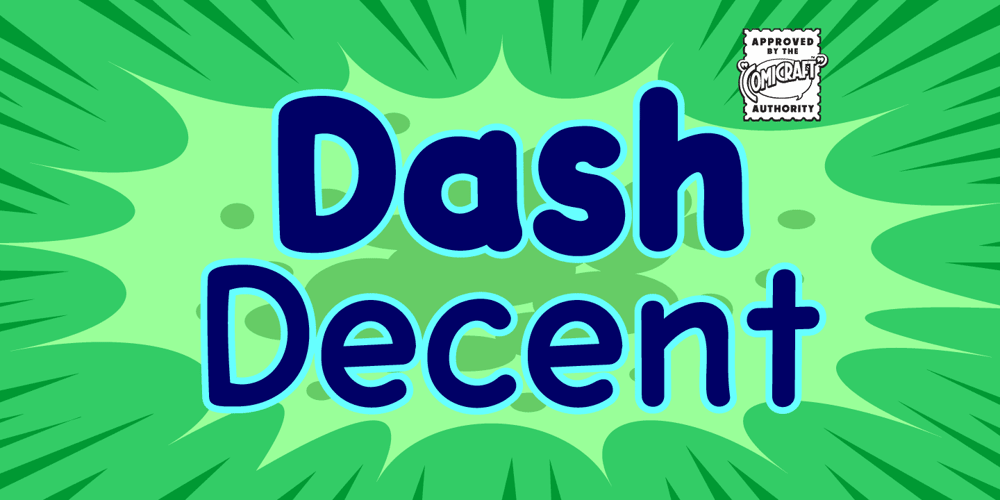
Dash Decent Font Family was designed by John Roshell and published by Comicraft. Dash Decent contains 6 styles and family package options. Are you feeling the need…the need for speed? Dash Decent is a top flight executive font that won’t leave you high and dry… Unless we’re talking dry martinis in the air stewardess’s lounge. Our speedball cocktail is guaranteed to get you up into the atmosphere and guide you in for a smooth landing. And that really is dash decent of us, don’t you think? Splendid, I’d say!